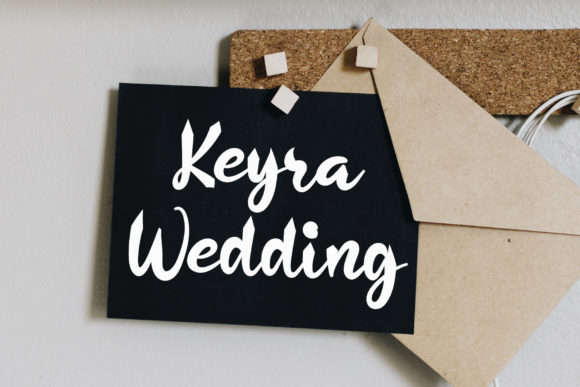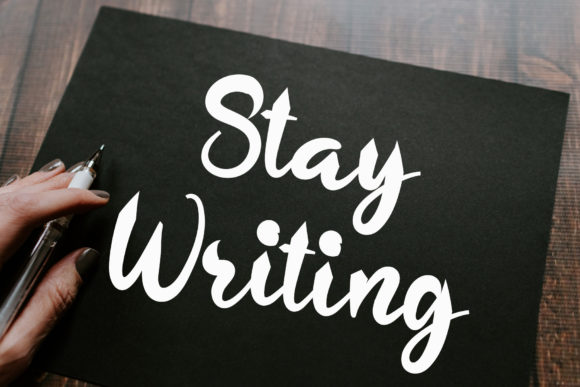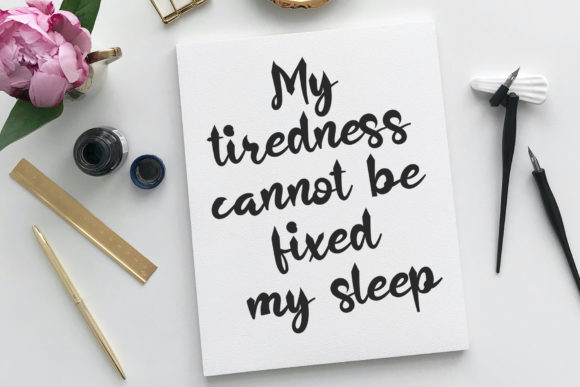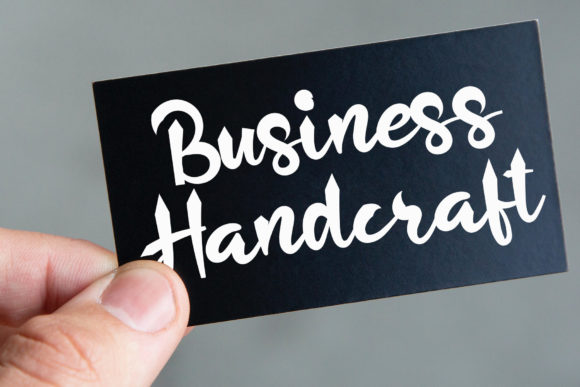
Gribel Font: Elevate Your Designs with Elegance and Sophistication
In the world of typography, a font can make or break a design. For designers and crafters, finding the perfect font that adds a touch of elegance and sophistication to their work can be a daunting task. However, if you’re looking for a font that embodies delicacy, elegance, and a flowing script, look no further than the Gribel Font.
What is Gribel Font?
Gribel is a delicate, elegant, and flowing handwritten font that has taken the design world by storm. Its beautiful and well-balanced characters make it an ideal match for a wide pool of designs, from wedding invitations and branding materials to packaging and digital media. The font’s unique charm lies in its ability to add a touch of sophistication and refinement to any project.
Characteristics of Gribel Font
So, what makes Gribel Font stand out from the rest? Here are some of its key characteristics:
- Delicate and Elegant: Gribel Font boasts a delicate and elegant script that exudes refinement and sophistication.
- Flowing Handwritten Style: The font features a flowing handwritten style that gives it a personal and organic feel.
- Well-Balanced Characters: Each character in the Gribel Font is carefully crafted to ensure perfect balance and harmony, making it easy to read and visually appealing.
- Versatile: Gribel Font can be used in a wide range of designs, from formal to informal, and is suitable for various industries, including fashion, beauty, and lifestyle.
Uses of Gribel Font
Gribel Font is an incredibly versatile font that can be used in various design projects, including:
- Wedding Invitations: Add a touch of elegance and sophistication to your wedding invitations with Gribel Font.
- Branding Materials: Use Gribel Font to create stunning branding materials, such as logos, business cards, and letterheads.
- Packaging Design: Elevate your packaging design with Gribel Font, perfect for luxury brands and high-end products.
- Digital Media: Use Gribel Font in digital media, such as social media graphics, blog posts, and email newsletters.
Why Choose Gribel Font?
With so many fonts available, why choose Gribel Font? Here are some compelling reasons:
- Unique and Distinctive: Gribel Font offers a unique and distinctive script that will set your designs apart from the rest.
- Elegant and Sophisticated: The font’s elegant and sophisticated style makes it perfect for designs that require a touch of refinement.
- Easy to Read: Gribel Font is easy to read, making it suitable for body text and headings.
- High-Quality: The font is of high quality, ensuring that your designs look professional and polished.
In conclusion, Gribel Font is a stunning handwritten font that offers elegance, sophistication, and versatility. Its delicate and flowing script makes it perfect for a wide range of designs, from wedding invitations to branding materials and packaging design. With its unique charm and high-quality craftsmanship, Gribel Font is an excellent choice for designers and crafters looking to elevate their designs to the next level.